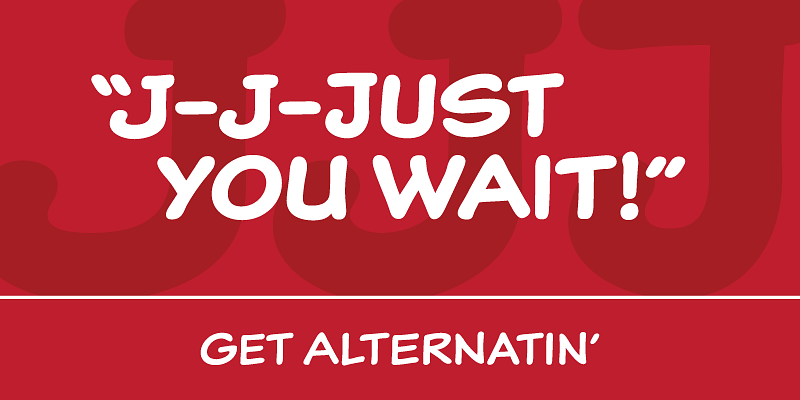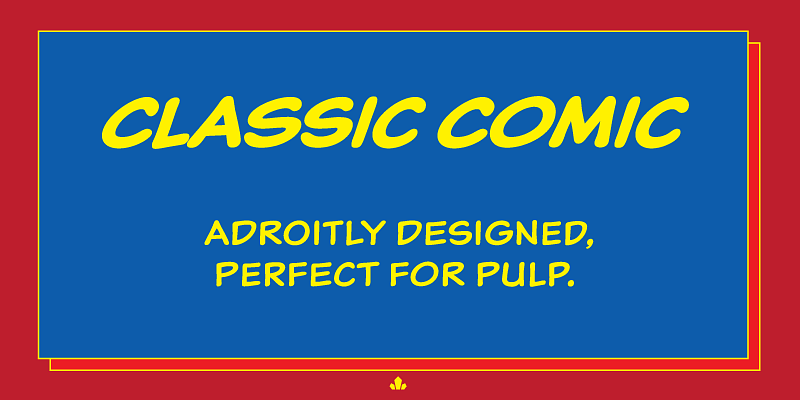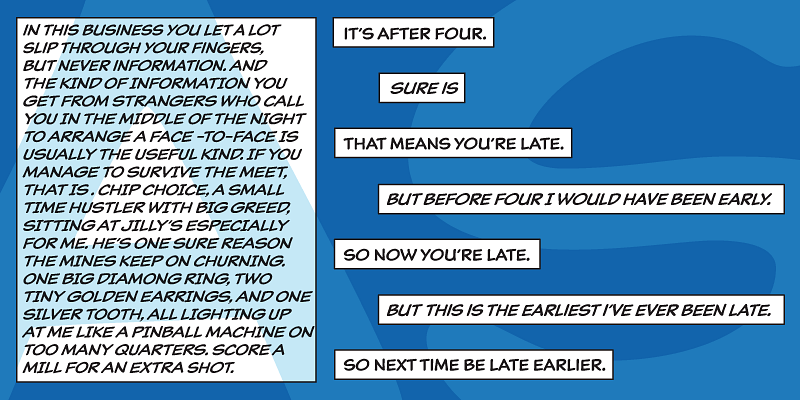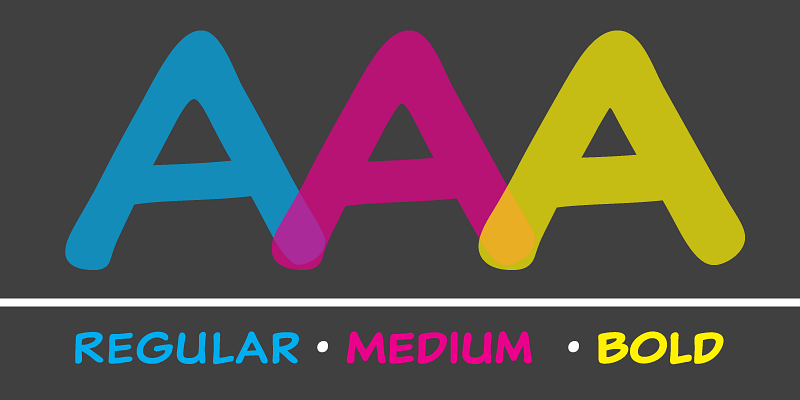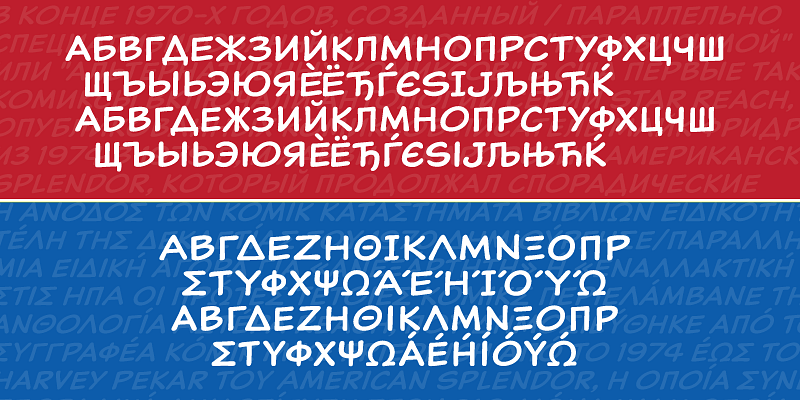
Rather than follow a particular comic book lettering model, Classic Comic’s forms are constructed with the natural tilt and wider aperture of the slightly darker lettering found in older comics on either side of the Atlantic.